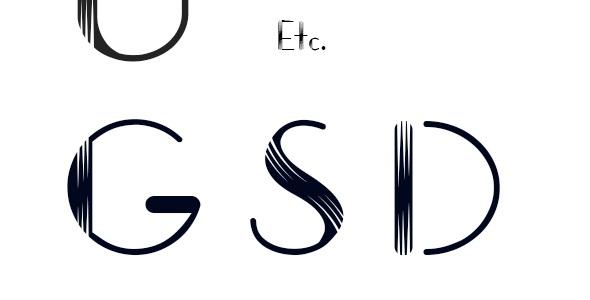
Headlineo Font
Headlineo Font Information
Headlineo Font is a stylish Font, Available in Style Regular, version with all special characters.
Make your design with Headlineo font
Suitable for…
Magazine design
Cover design
Flyer design
Display font
Web site Slider Font
Hade line font
Regular font
Product name
Etc.